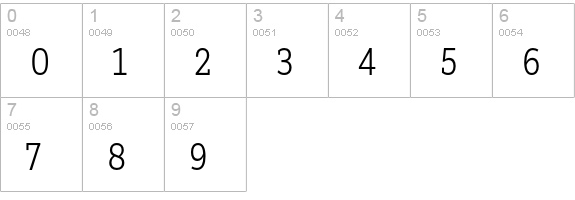
Brix Slab Cond Light Font Details
Brix Slab Cond Light is a refined, elegant, condensed-width variant in the Brix typeface family \xE2\x80\x94 well suited to elegant body text, refined sub-headings, and luxury branding.
Brix Slab Cond Light font is a modern and sleek typeface designed for a wide range of applications. With its clean lines and elegant curves, this font is perfect for conveying a sense of sophistication and professionalism. The light weight of the font adds a touch of airy elegance to any design project. Best of all, Brix Slab Cond Light font is available for free download at FontsMarket.com. Whether you're working on a website, brochure, or any other design project, this font is sure to make a statement and elevate your work to the next level. Don't miss out on the opportunity to add this versatile and stylish font to your collection - download it for free today at FontsMarket.com!